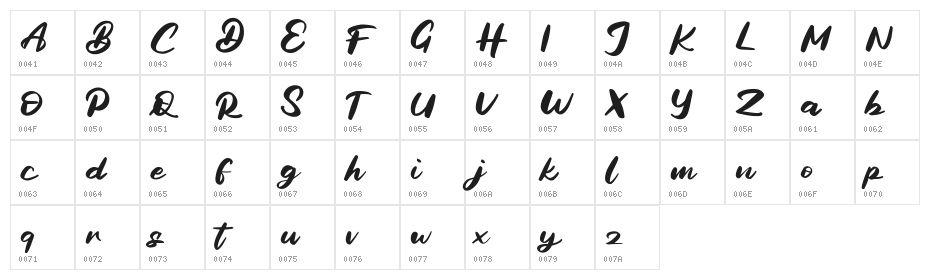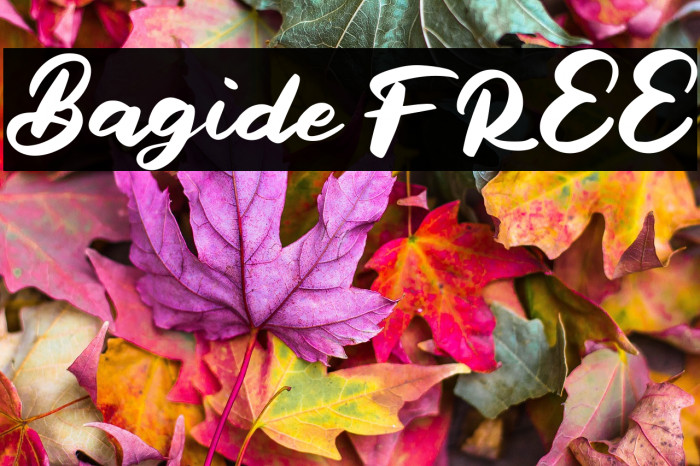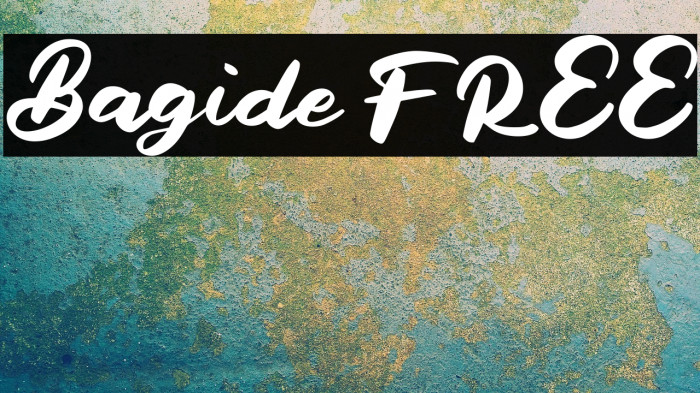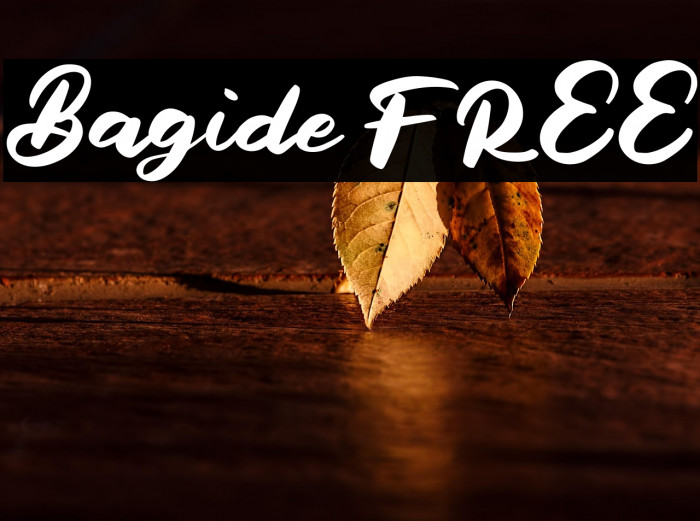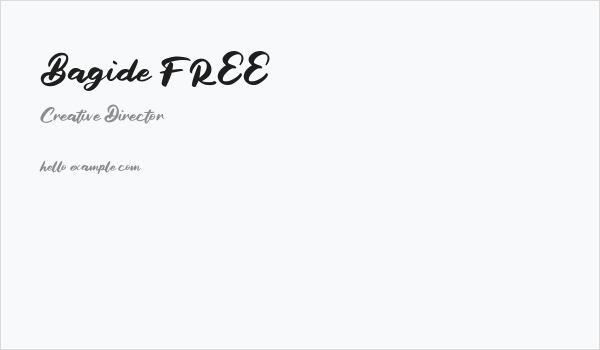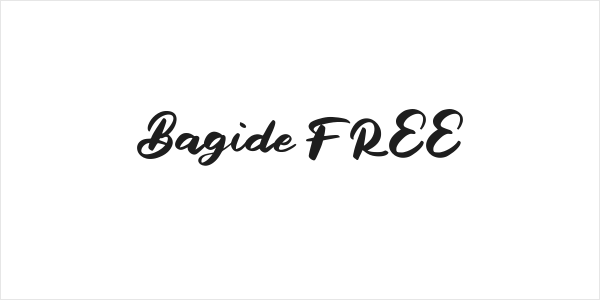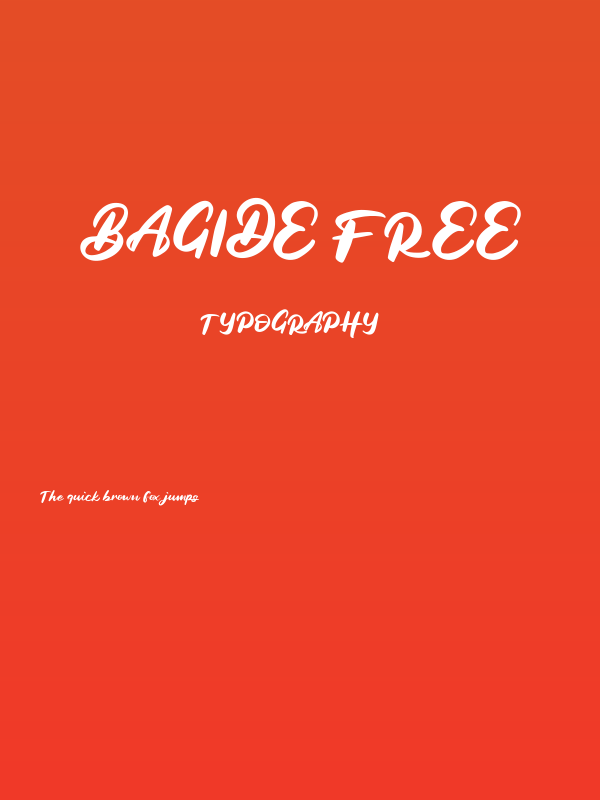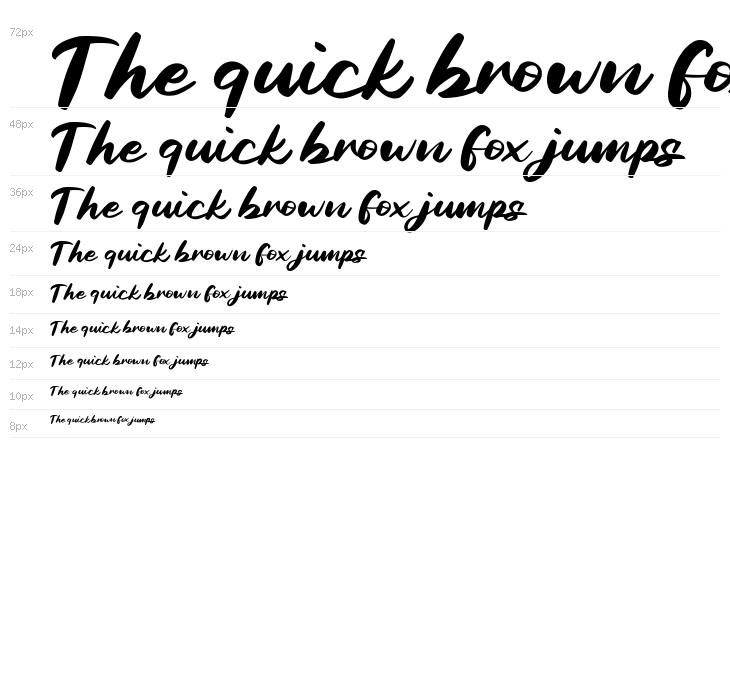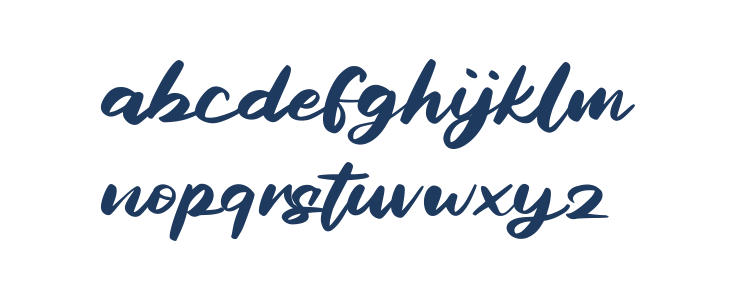
Bagide FREE Font
Bagide FREE Description
This font features a bold and expressive script style with a dynamic flow. The characters are connected, giving it a handwritten appearance that is both elegant and casual. The strokes are thick, providing a strong visual impact, while the curves and loops add a sense of movement and fluidity. The uppercase and lowercase letters maintain a consistent style, with a slight slant that enhances its informal charm. This font is versatile, suitable for projects that require a personal touch or a creative flair.
| Use Case | Logos, Headlines, Invitations |
| Proposed Projects | Ideal for branding, invitations, greeting cards, and social media graphics. |